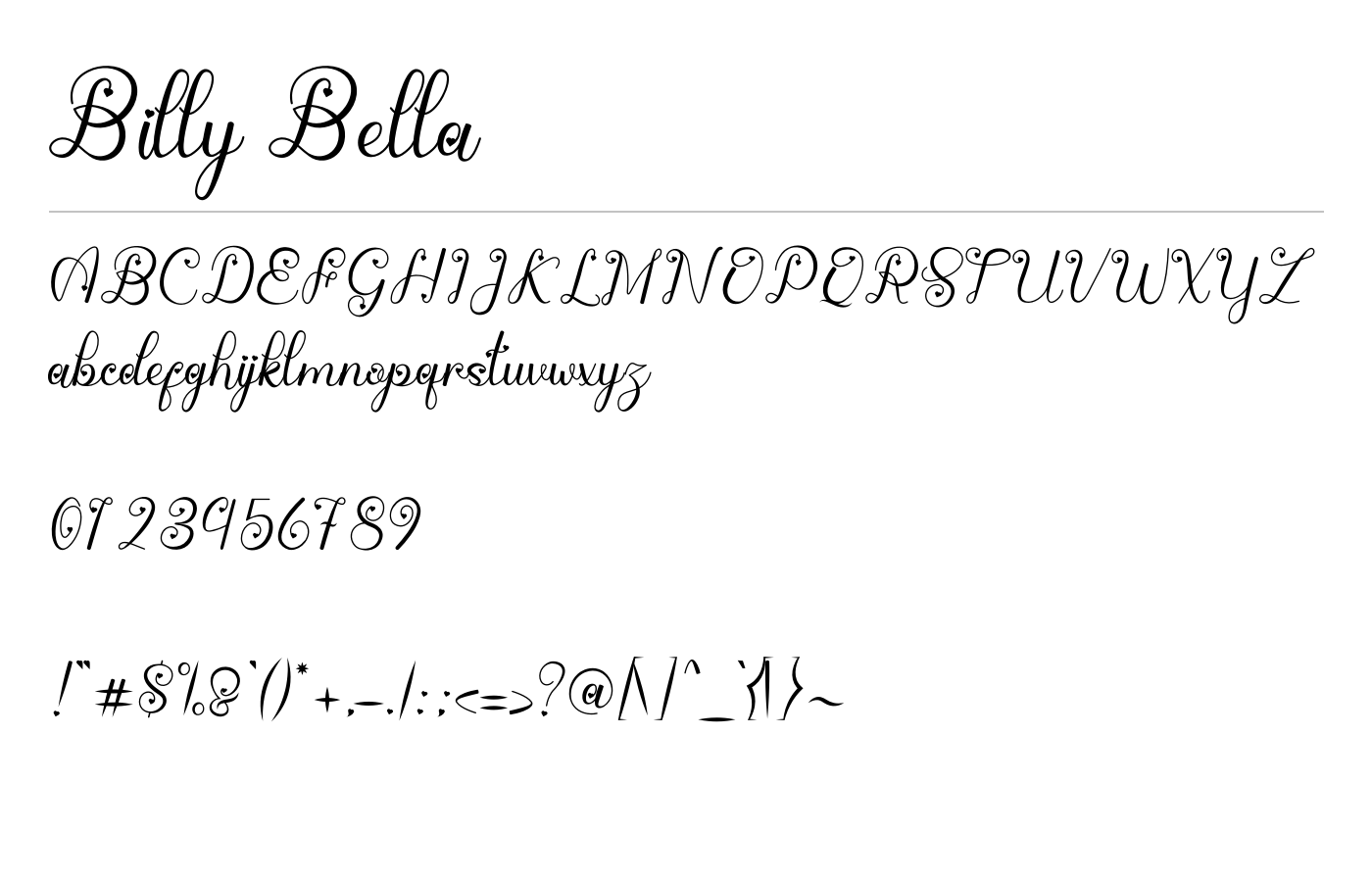
Billy Bella is a delicate, elegant script font with thin, flowing strokes and playful curls that give it a charming, handwritten feel. Its light weight and ornate letterforms make it perfect for feminine, romantic, or vintage-inspired designs such as invitations, logos, and decorative headlines. This font adds a graceful, artistic touch wherever a stylish and personal flair is desired.
Billy Bella Font
About Billy Bella Font
| Font family | Billy Bella Font |
| Designer | Yayan Sihwadi |